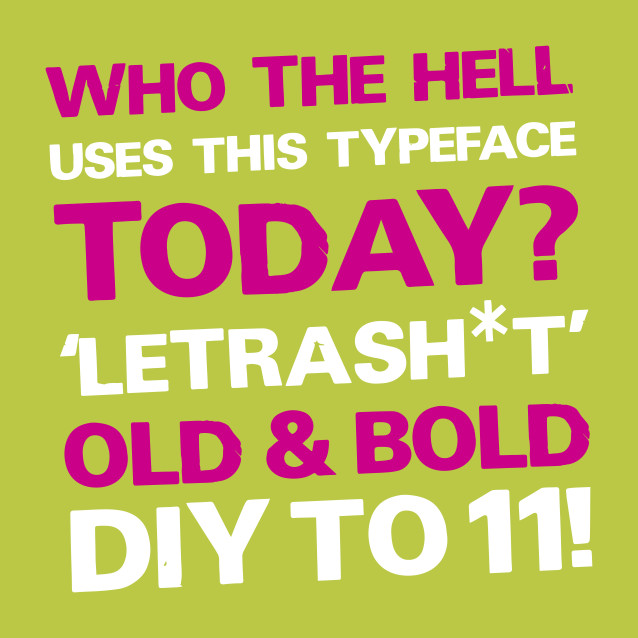
Letrashit Font, suitable for any design needs : logo, branding, modern advertising design, logos, poster quote, book / cover Title, editorial design, website / blog, card, t-shirts, and any hand-lettered needs.